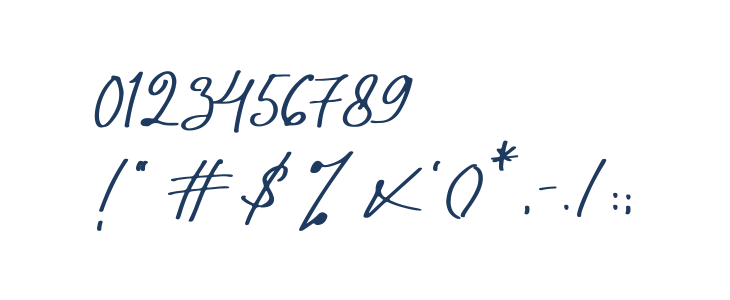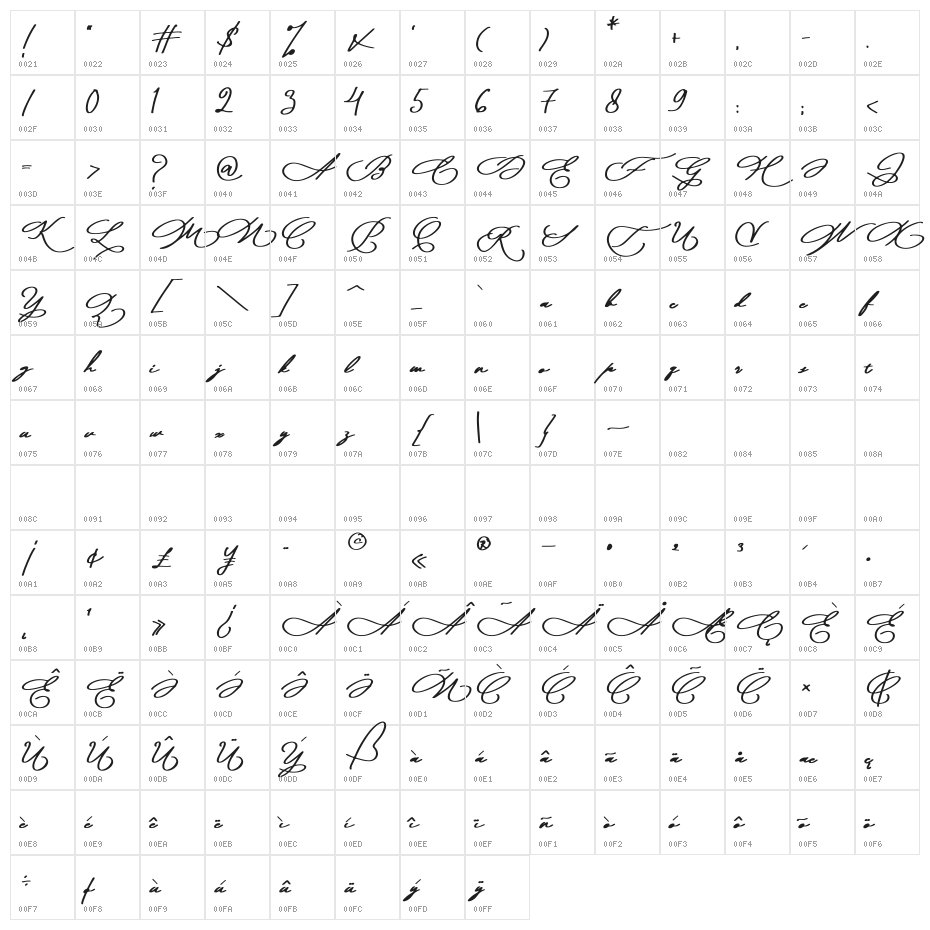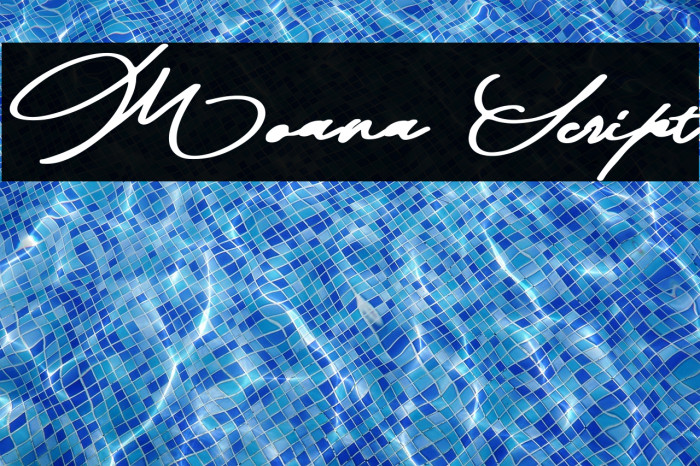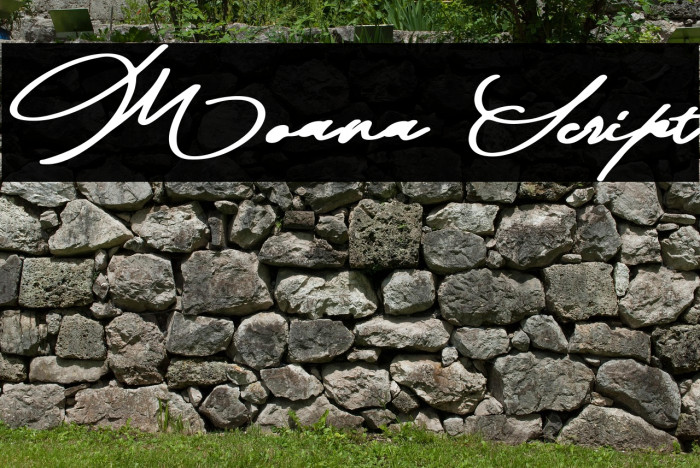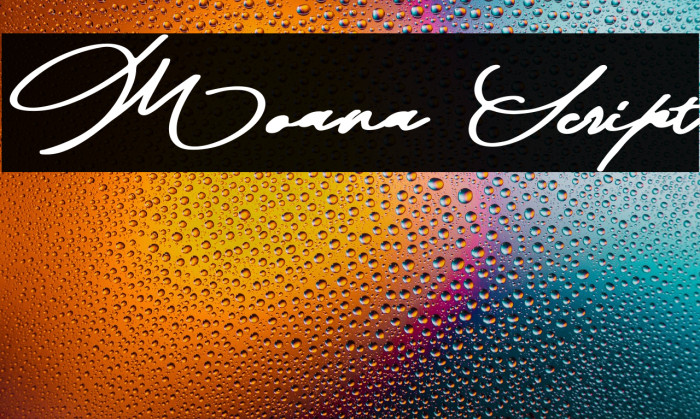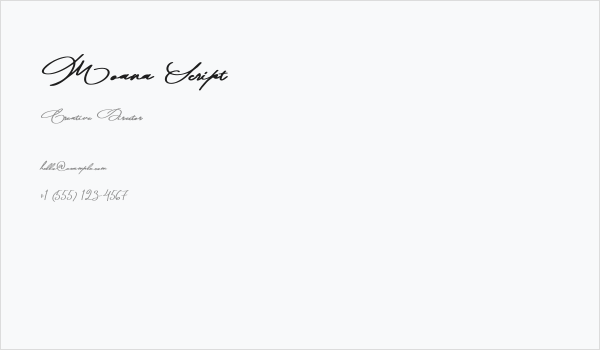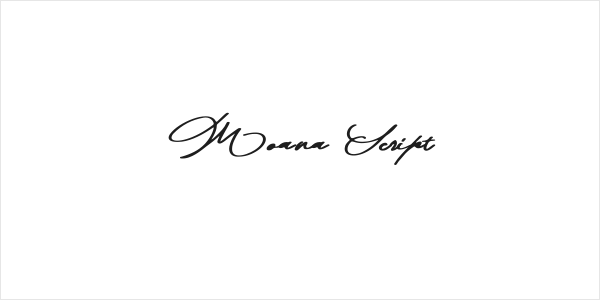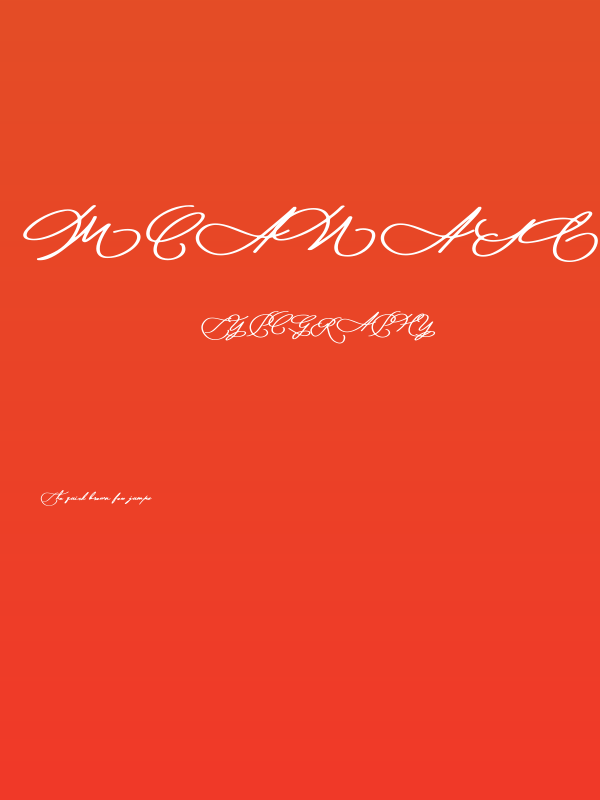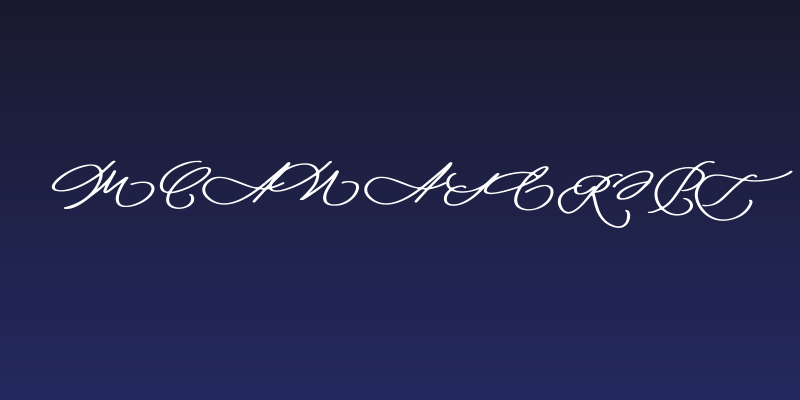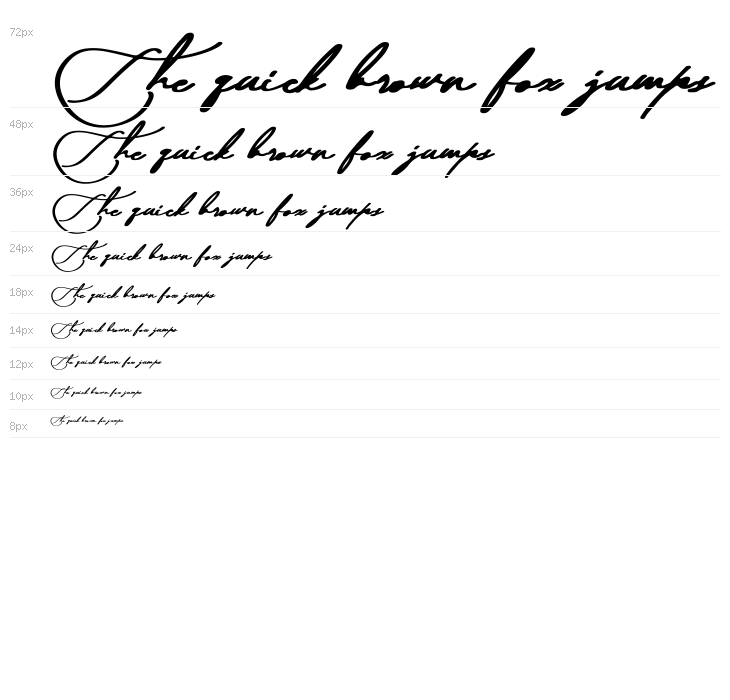
Moana Script Font
Moana Script Description
This elegant script font features flowing, interconnected letters that mimic the fluidity of handwriting. The uppercase letters are ornate with intricate loops and swirls, while the lowercase letters maintain a smooth, cursive style. The numerals are bold and slightly more structured, providing a nice contrast to the letters. Special characters are creatively designed to match the overall aesthetic, making this font suitable for decorative purposes. The overall appearance is sophisticated and artistic, ideal for projects that require a touch of elegance and personalization.
| Proposed Projects | Ideal for wedding invitations, greeting cards, branding, and any project requiring a personal, elegant touch. |